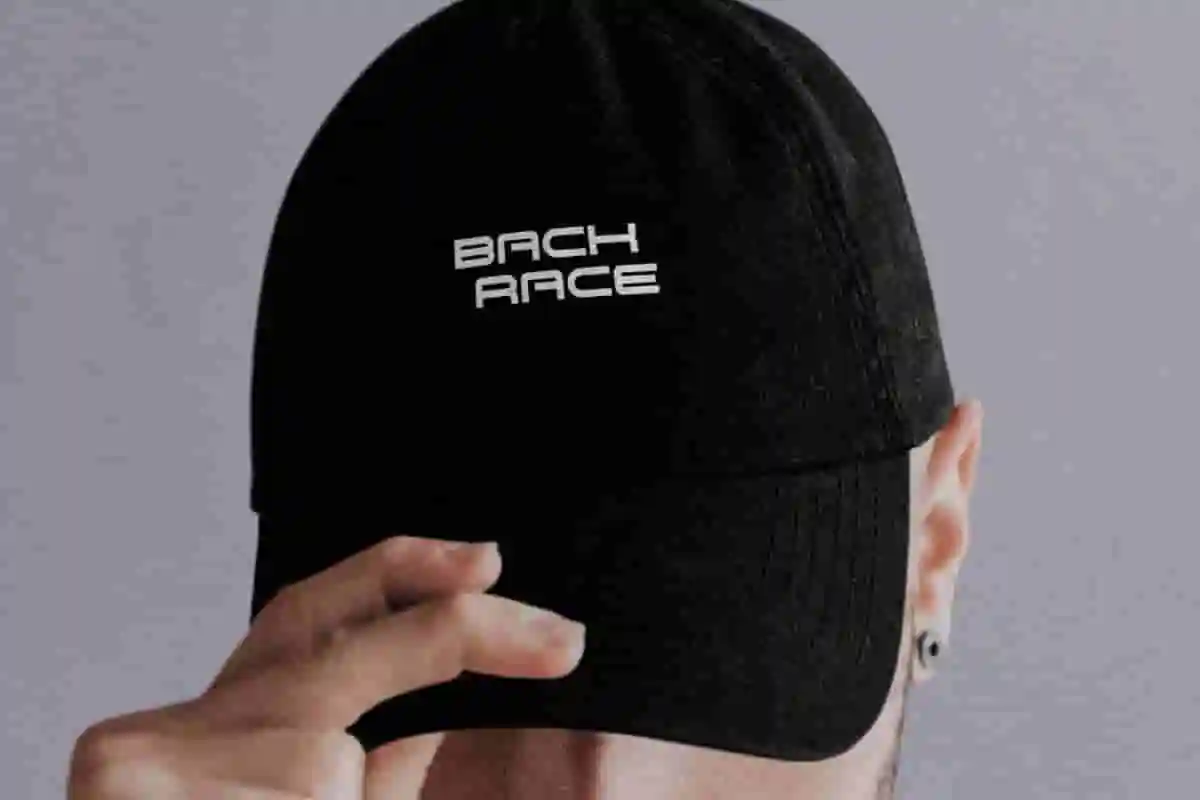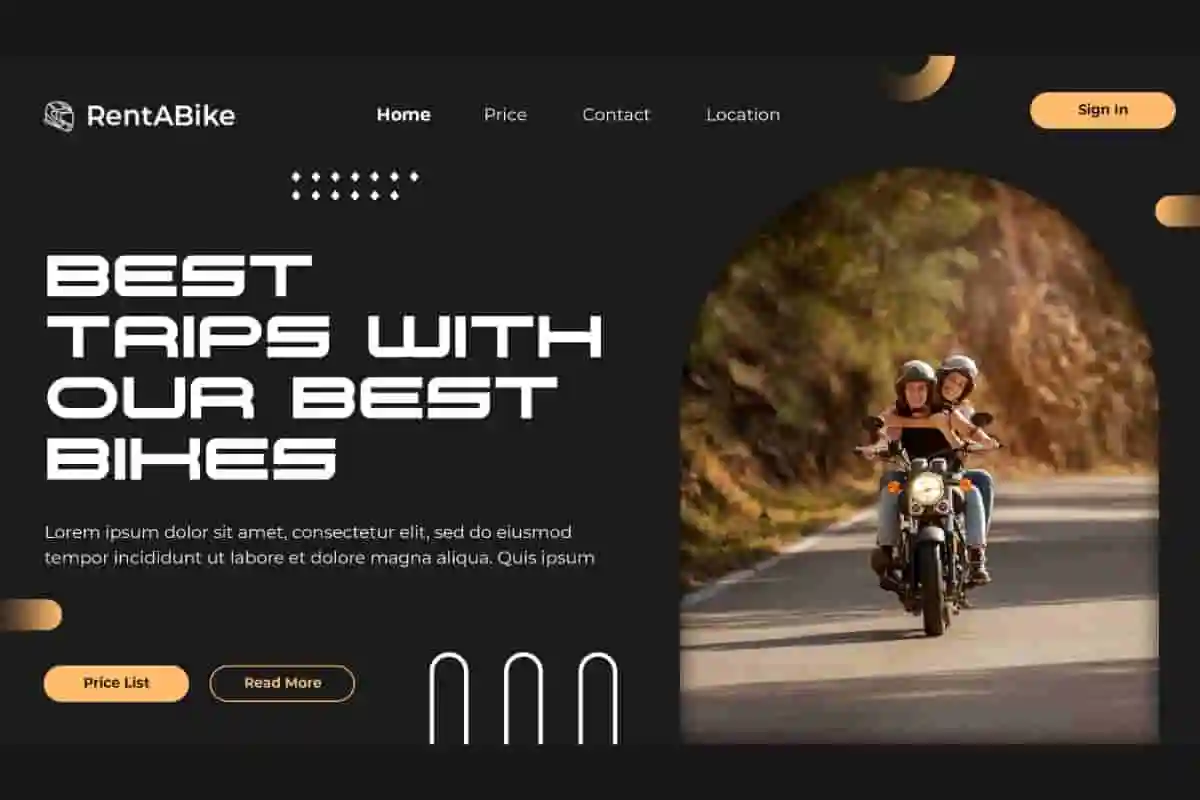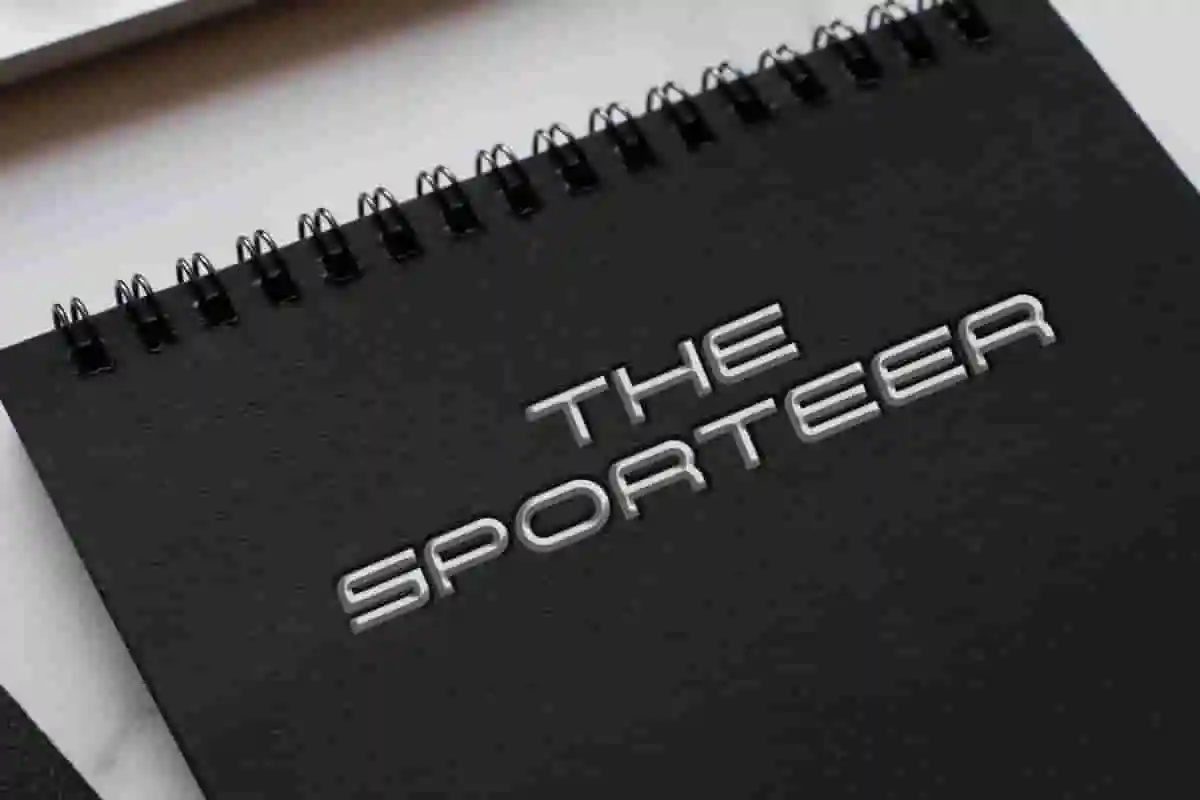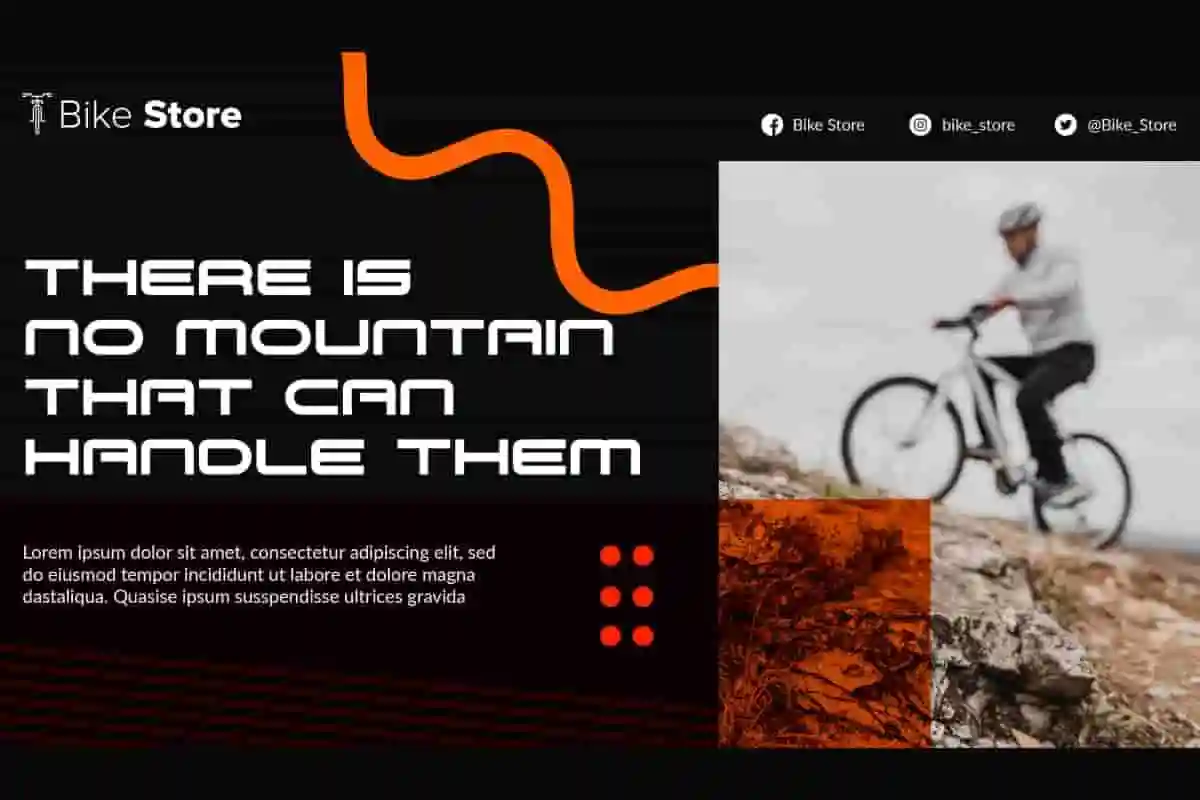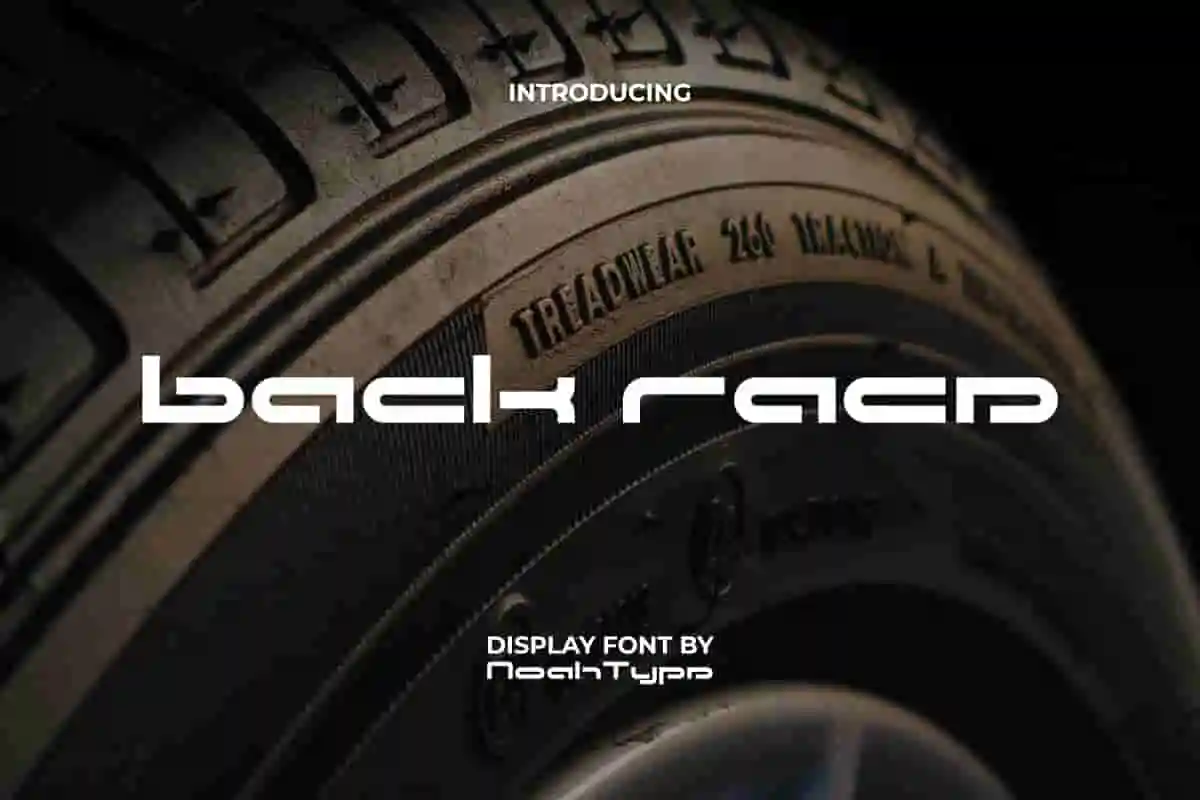
Back Race Font is a futuristic technology racing display font by NoahType. This font has a simple style but still stylish with a modern techno concept. It will be good for any designs, such as brand image, cover, custom design, invitation, label, marketing material, menu, poster, product packaging, quotes, signage, stationery, web, and many more!
Back Race Font includes a complete set of Uppercase and Lowercase Basic Characters with different looks for both, Numerals, Punctuation and Symbol. The characters of this font will give amazing look and also a perfect choice for many industries, such as accessories, advertising, event or festival, fashion, game, movie, photography, printing, publishing, sports, travel, etc.